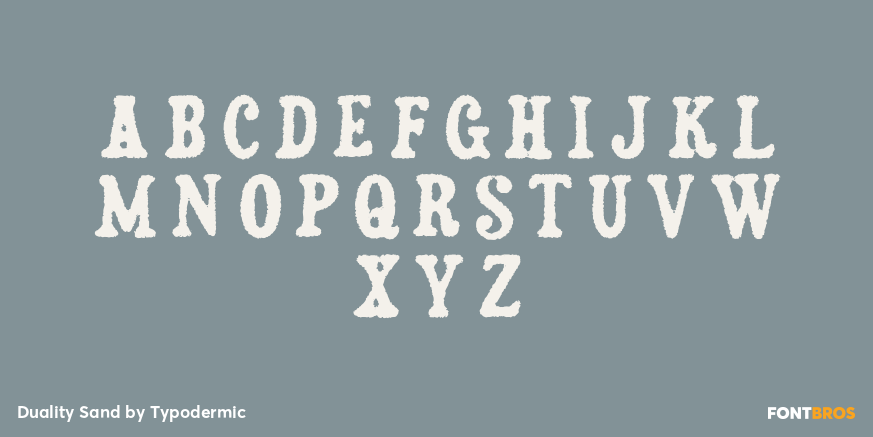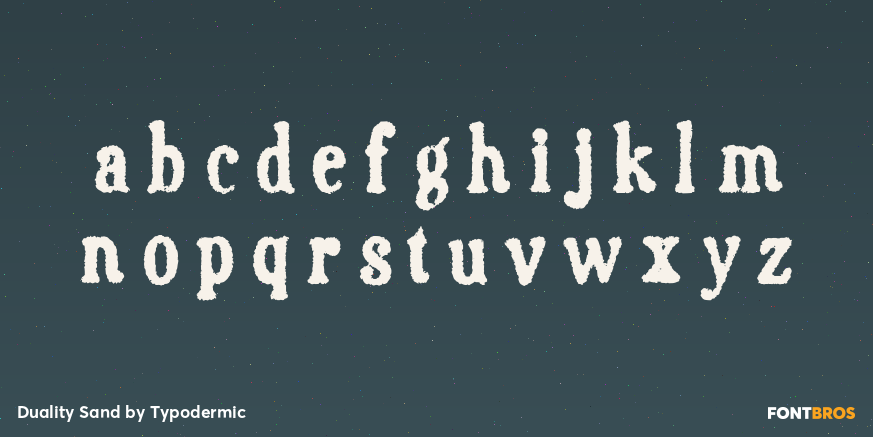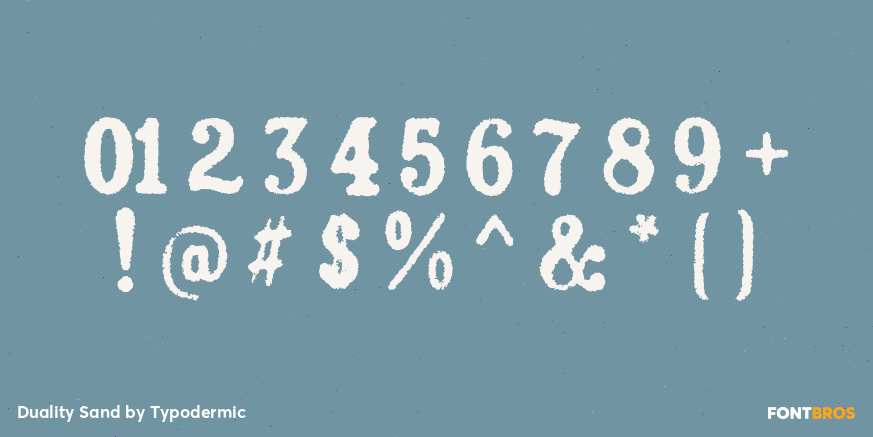
Duality Sand
Duality Sand abrades the family’s Palm-Pilot-drawn slab forms into a dry, worn surface. The damage suggests repeated handling, dust, scuffed polymer, or labels faded on equipment that has stayed in service, while the compact letter structure remains recognizably Duality.
Use Sand for repair kits, refurbished electronics, field recorders, modular devices, outdoor creative hardware, parts packaging, and campaigns about long product life. Pair it with Regular for new or interface-adjacent graphics, then use Sand where the same identity has been carried, opened, repaired, or exposed to use.
Duality Sand by Typodermic